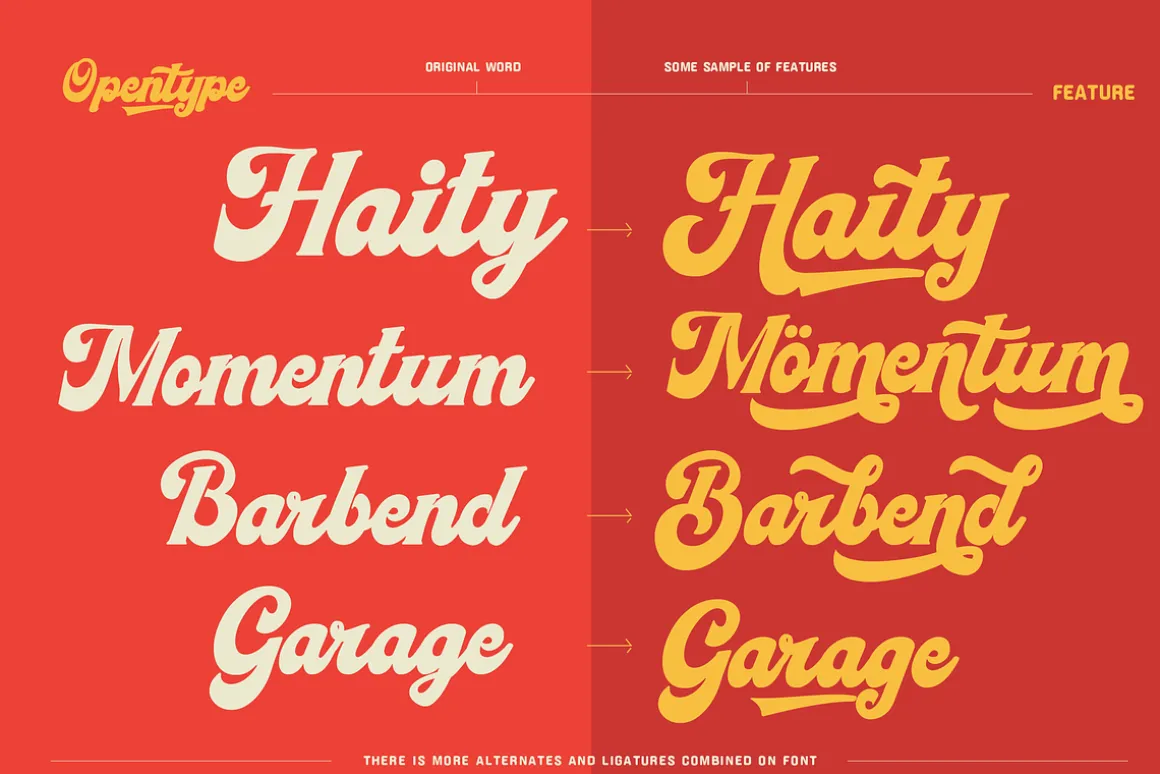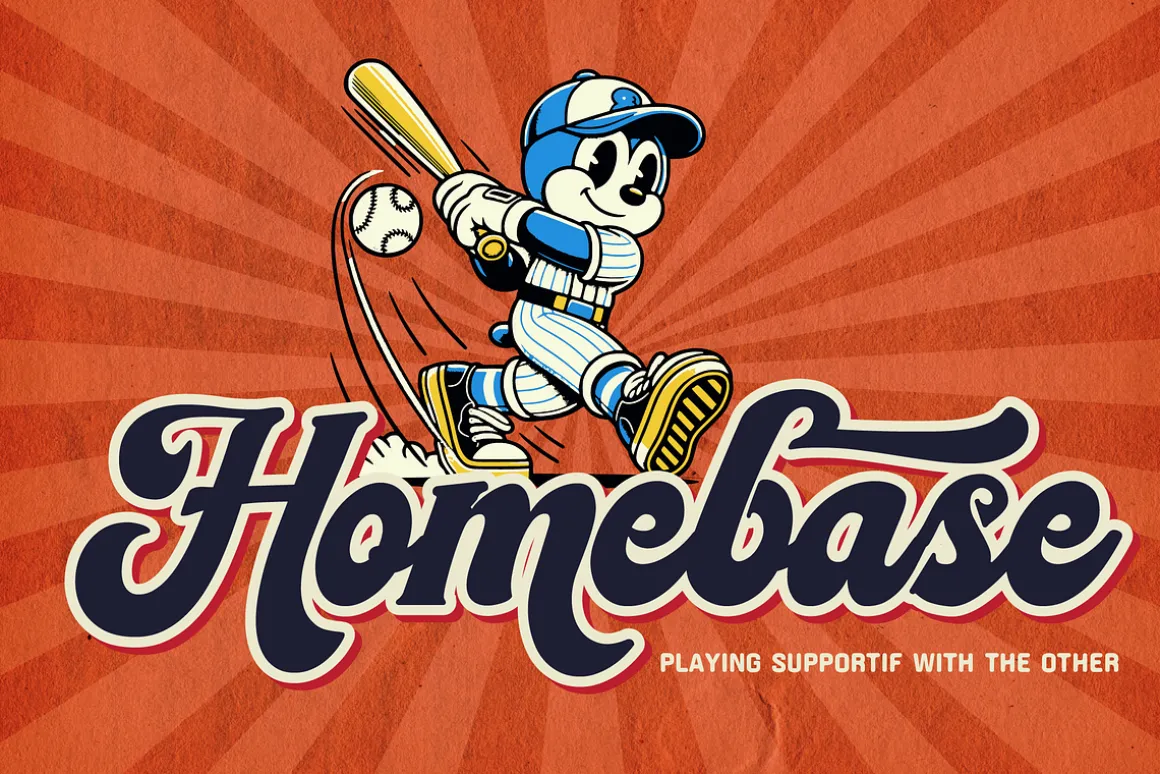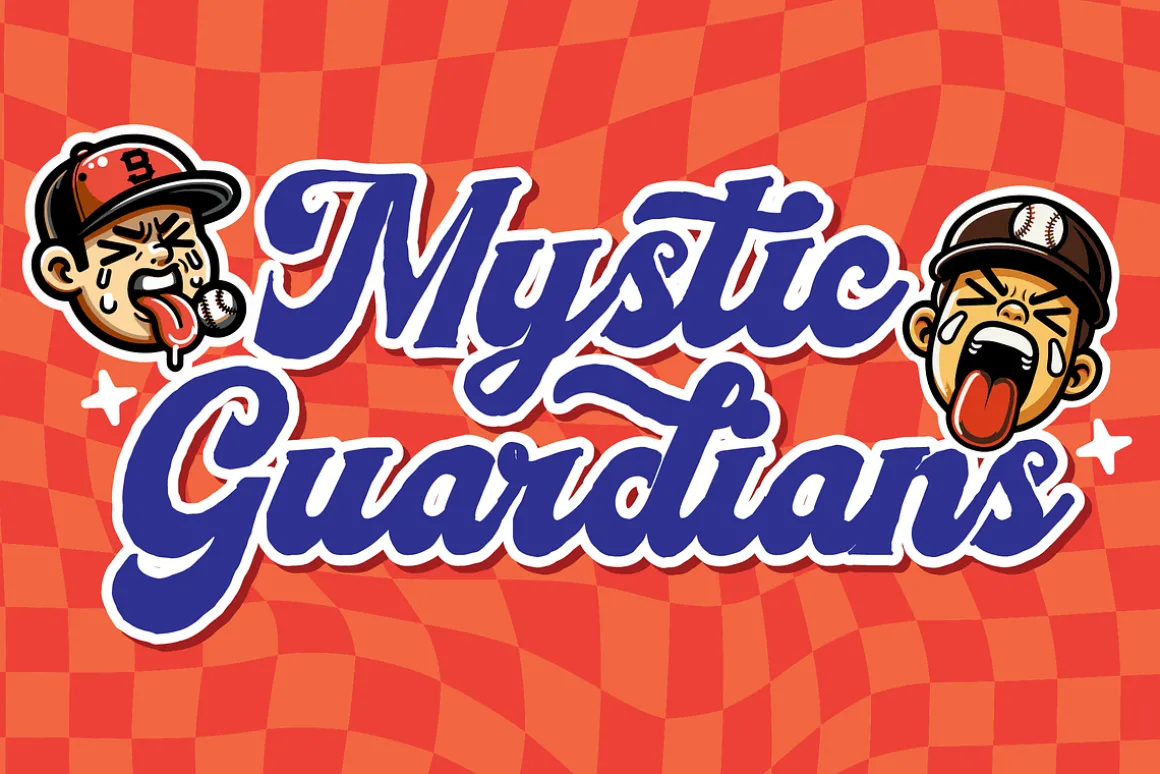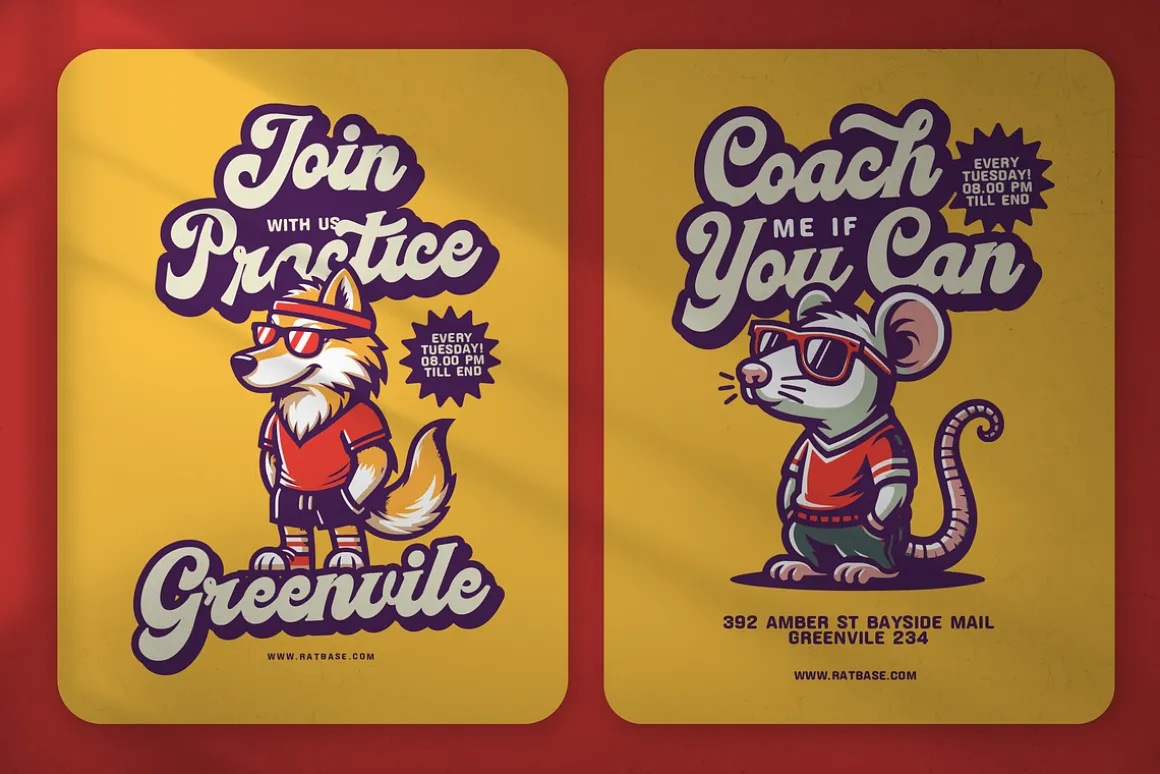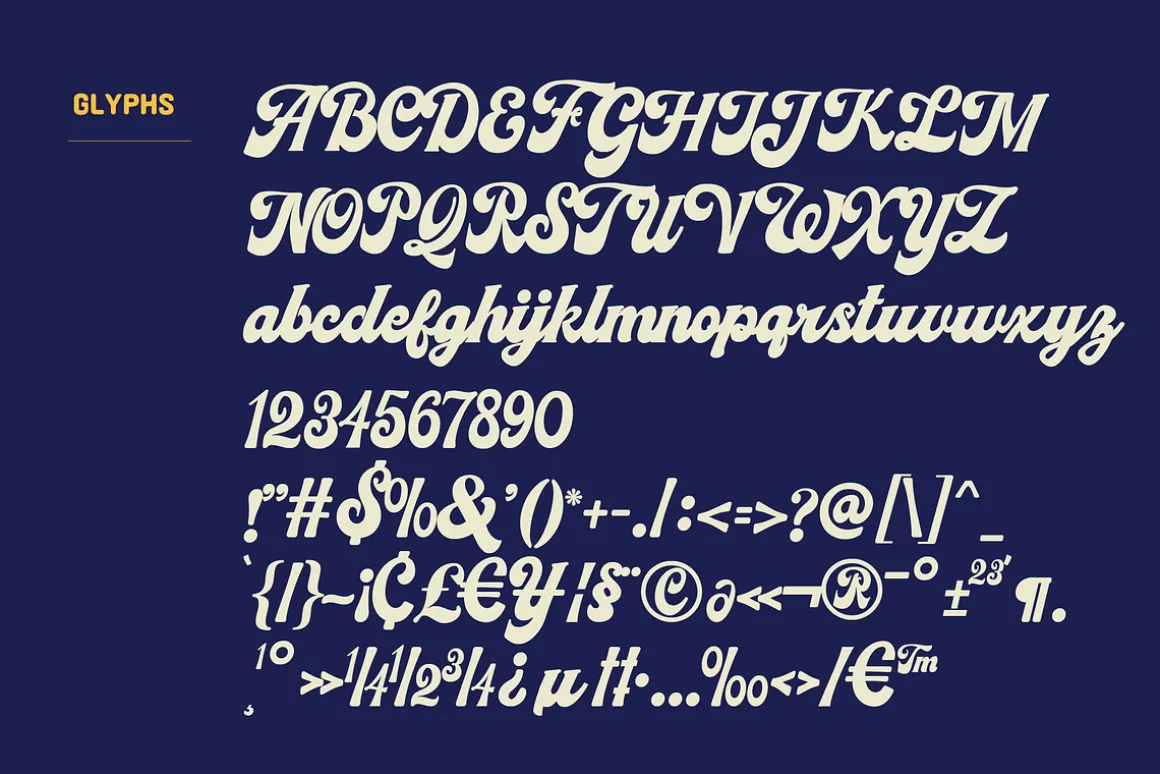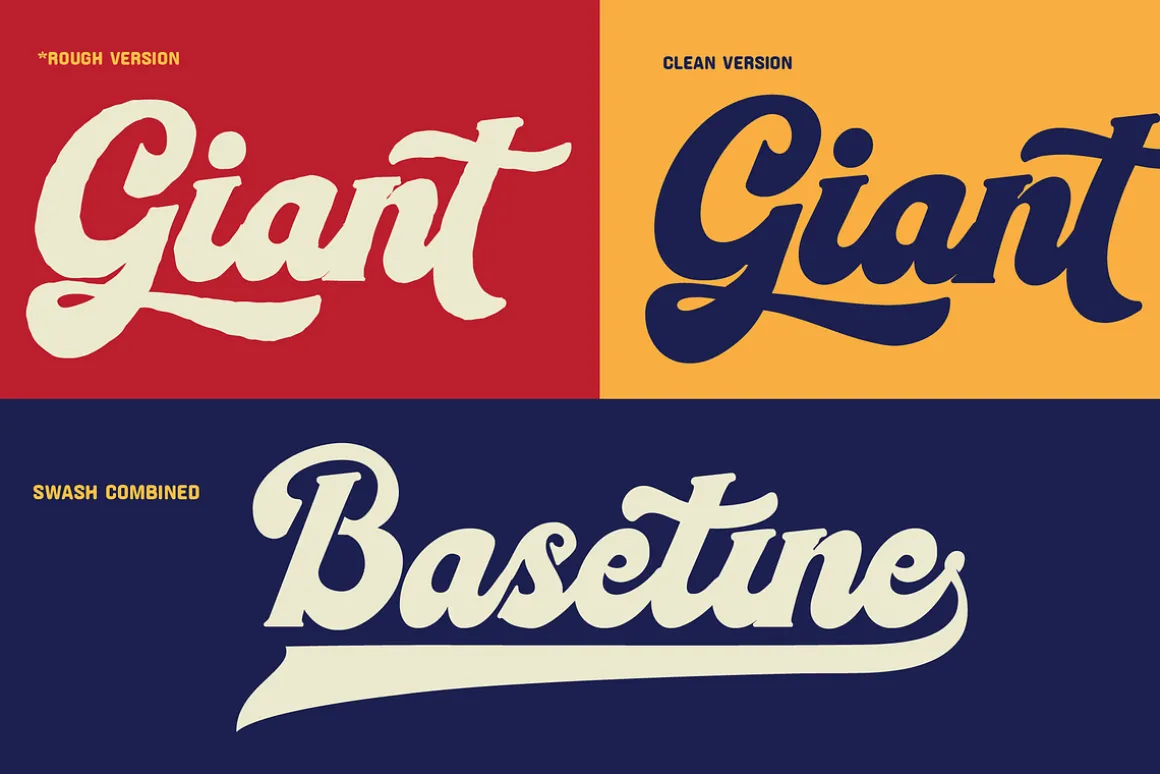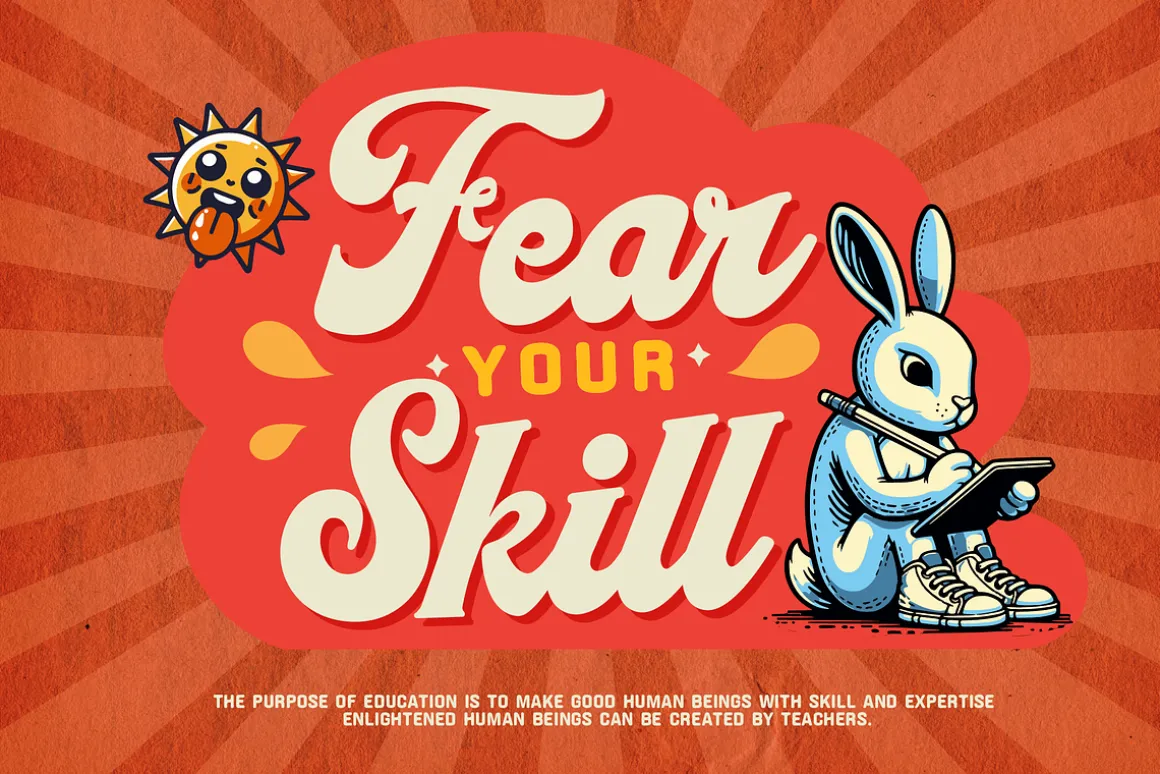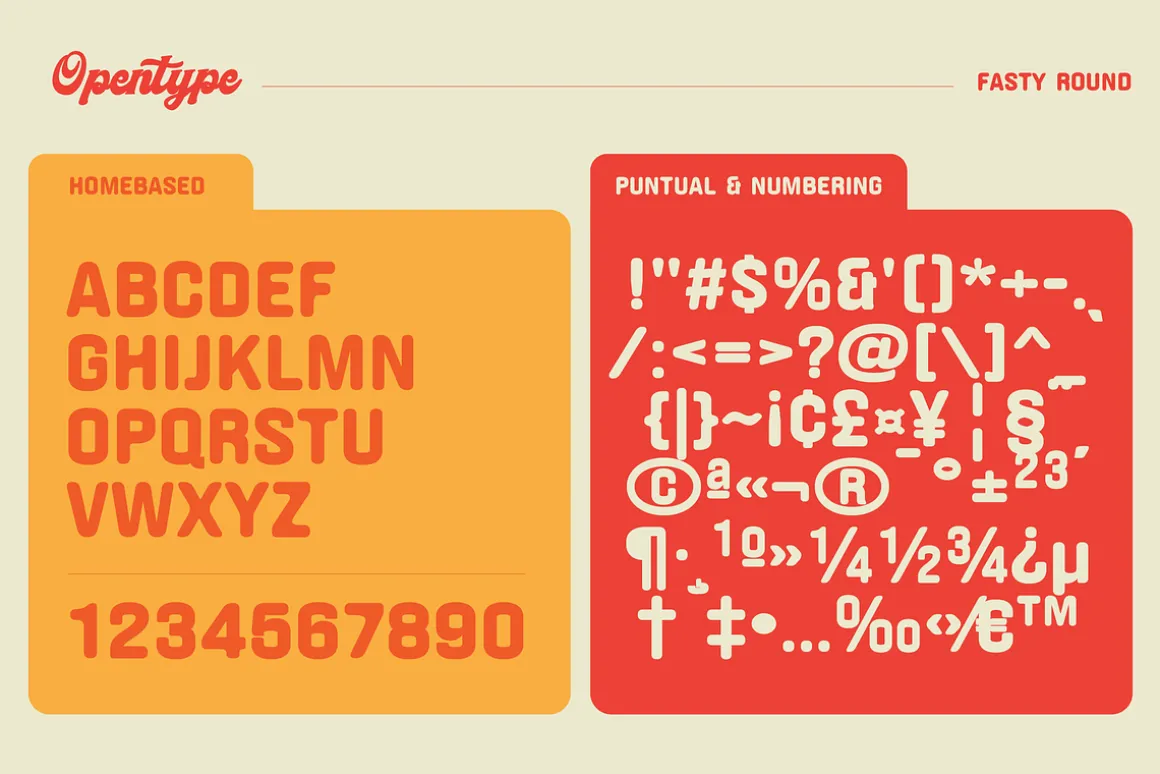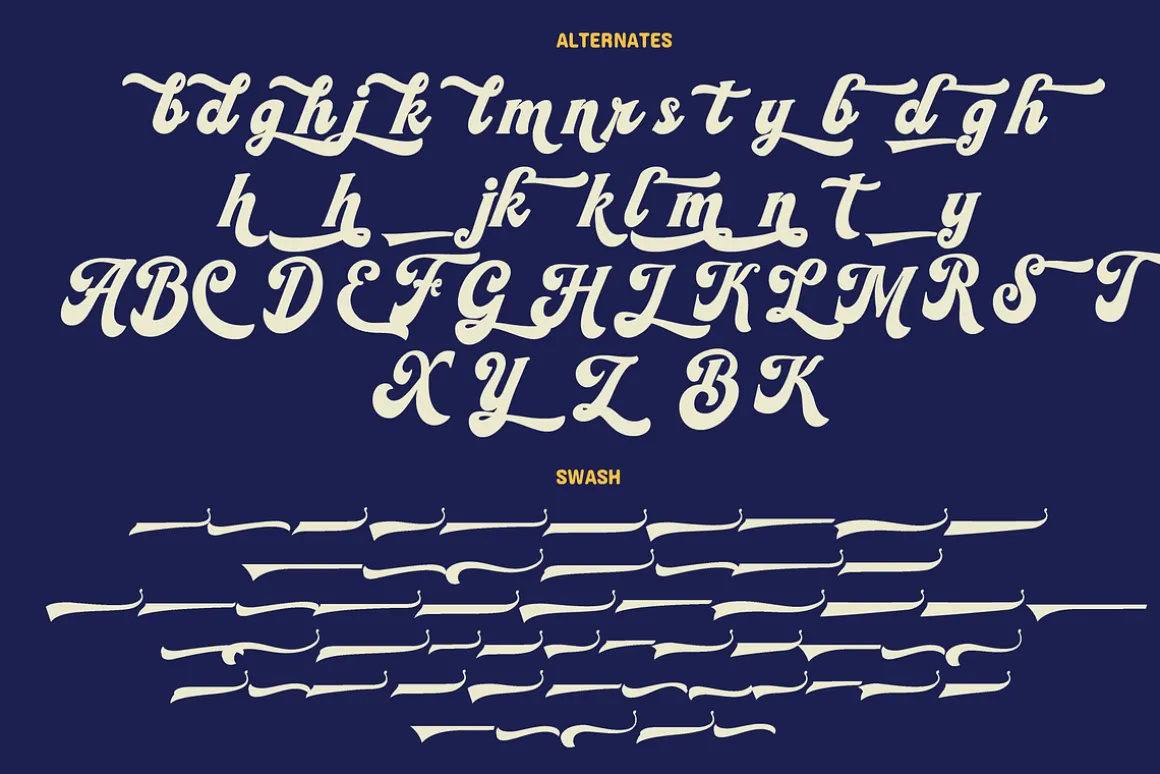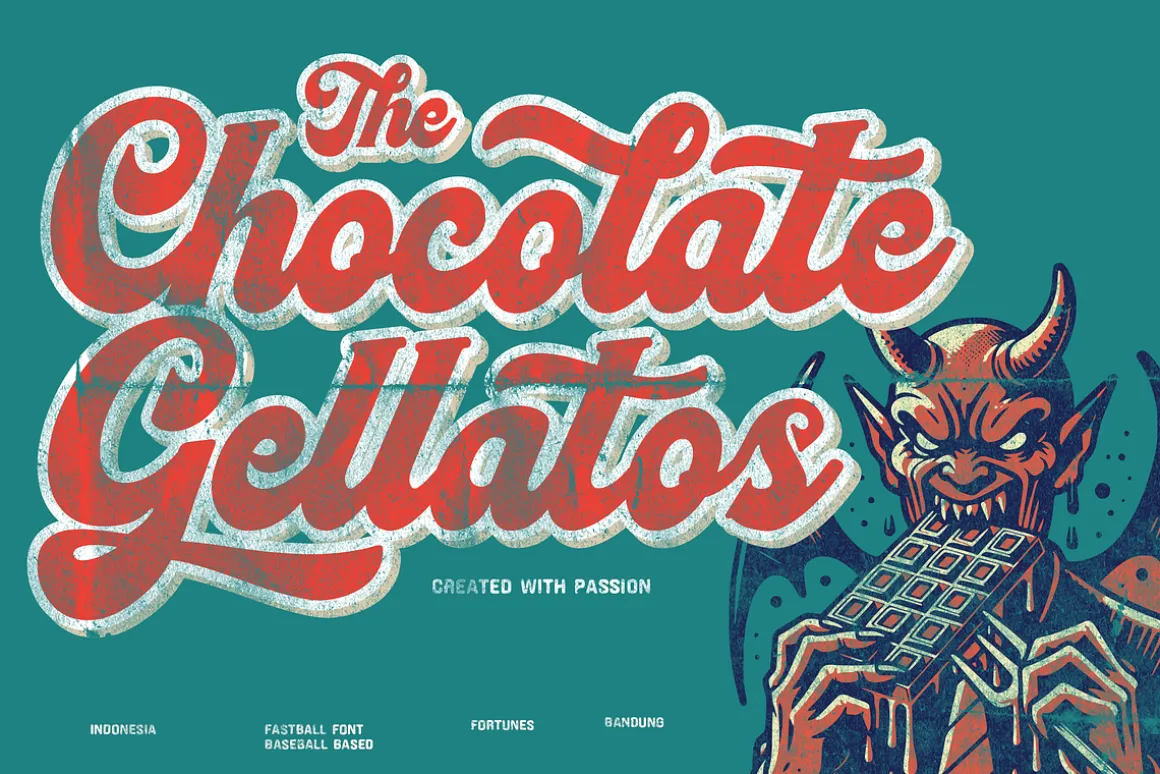
A script font with a baseball theme brings the excitement and nostalgia of America’s favorite pastime to the forefront. Its flowing, cursive strokes emulate the graceful motion of a pitcher’s throw or a batter’s swing. The font’s design often incorporates elements like baseball seams, bats, or caps, adding a playful yet authentic touch. Each letter connects seamlessly.
This typeface is perfect for team logos, event invitations, and merchandise, capturing the spirit of the game. Its classic yet sporty aesthetic evokes memories of summer games, roaring crowds, and the timeless charm of baseball.